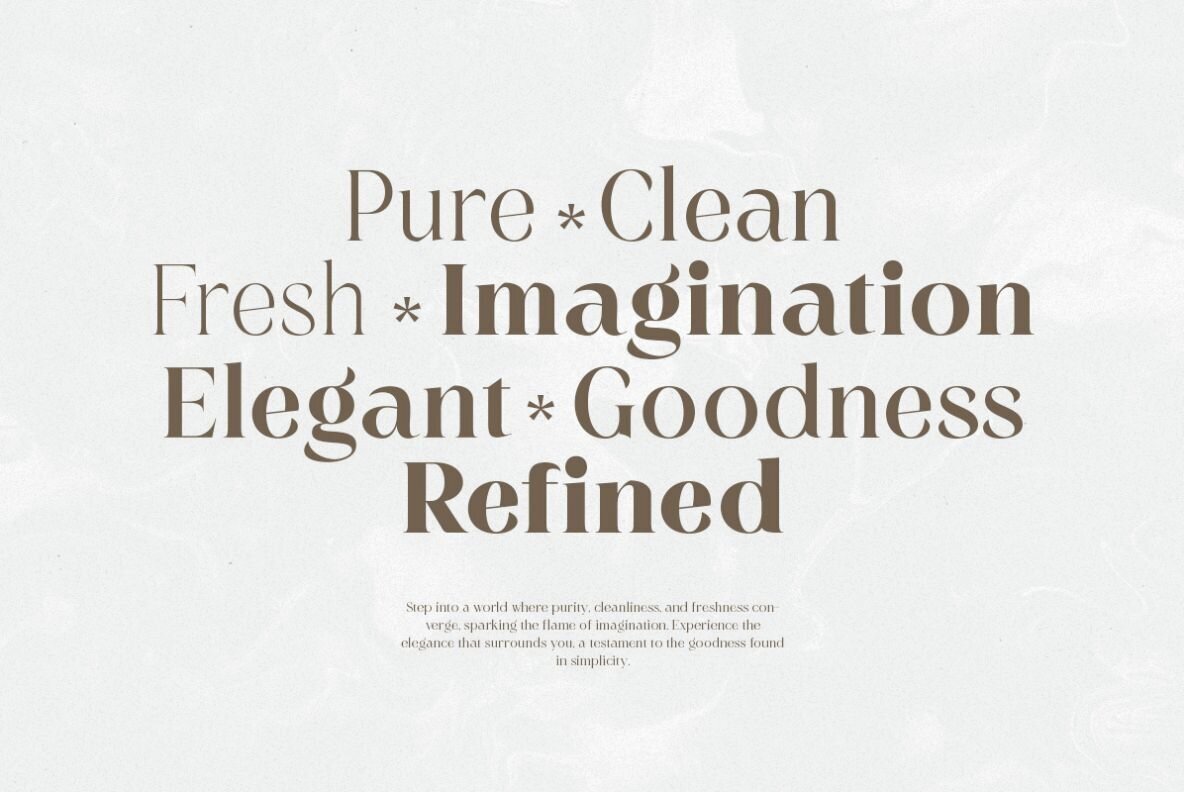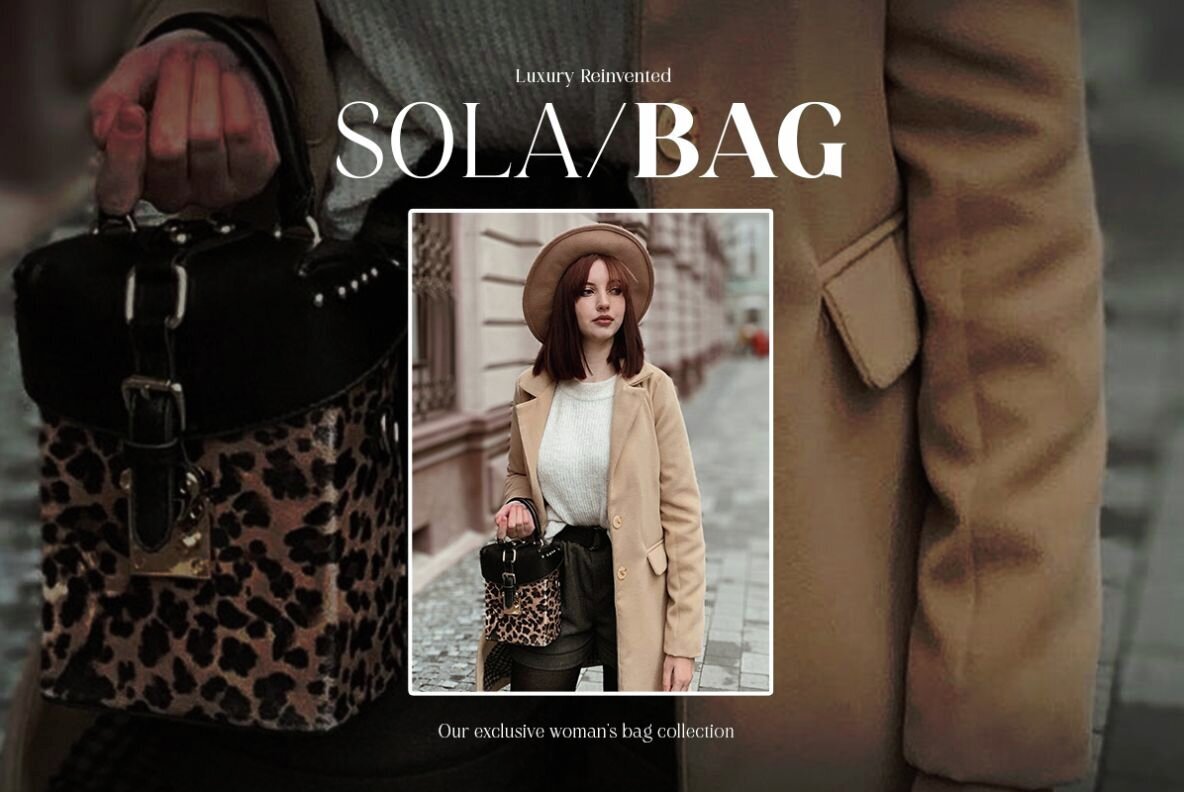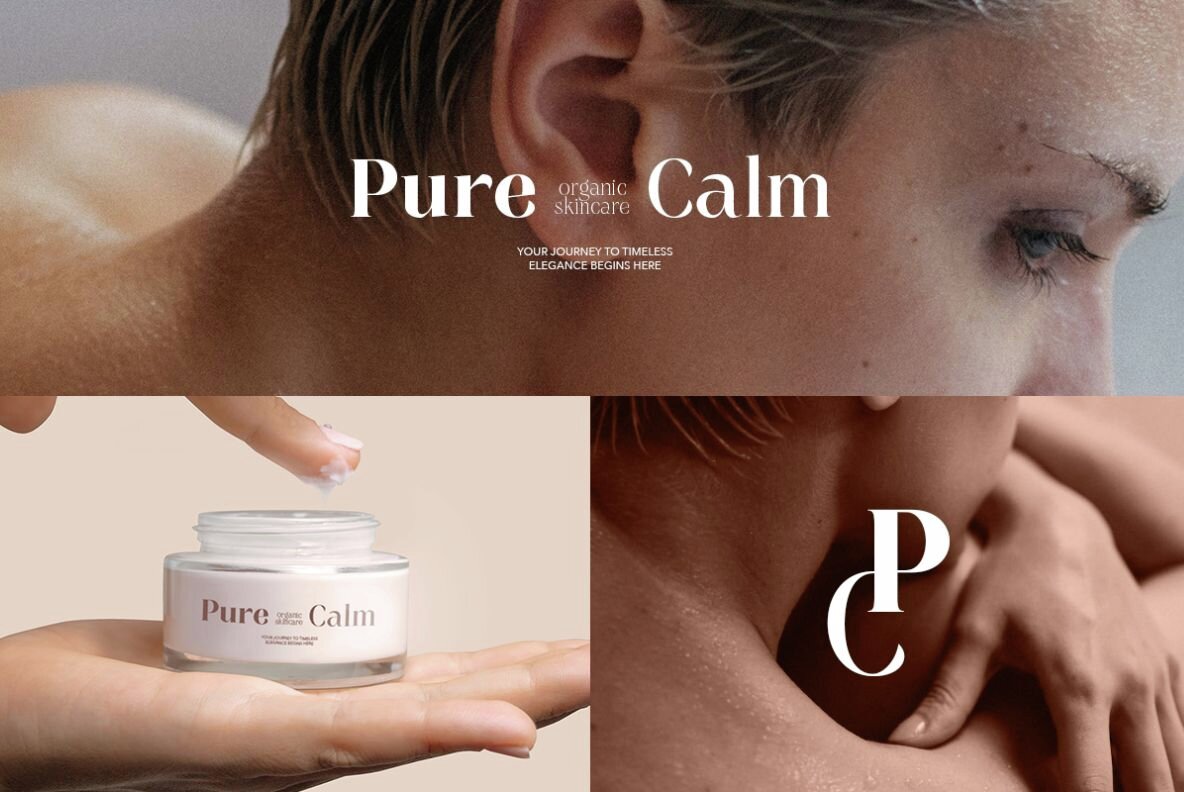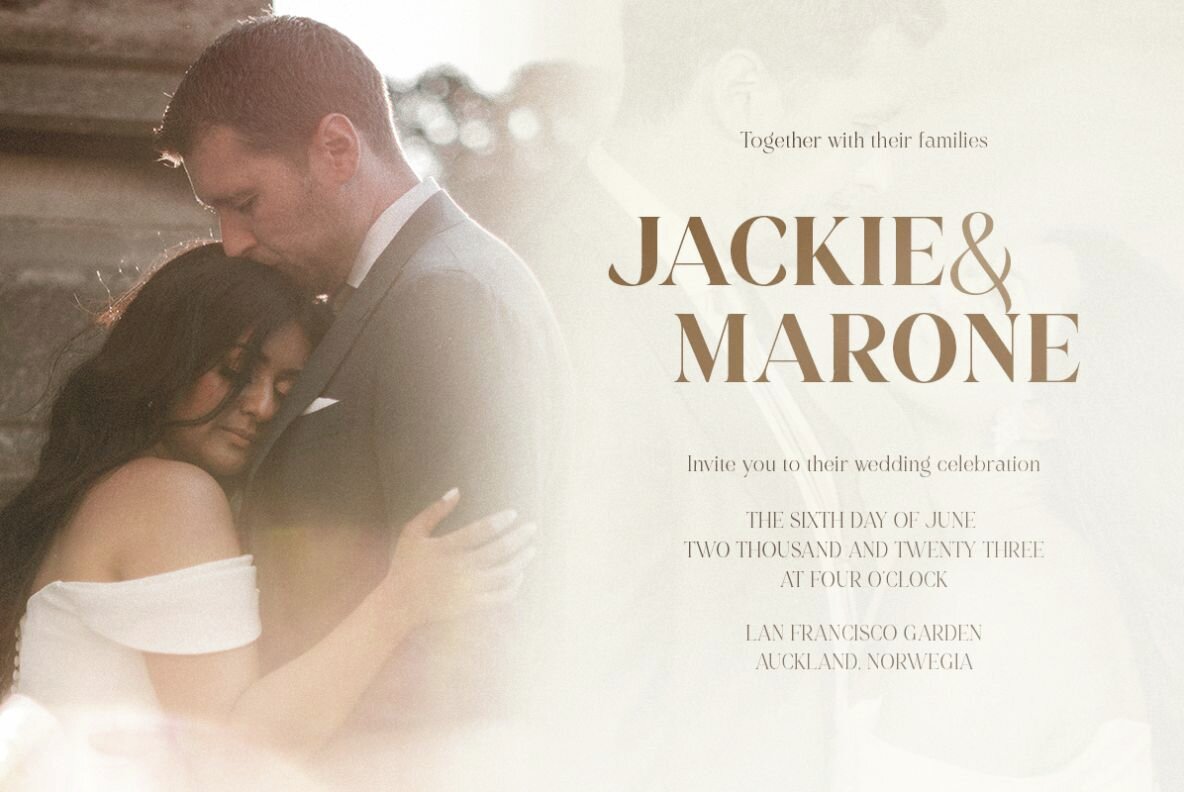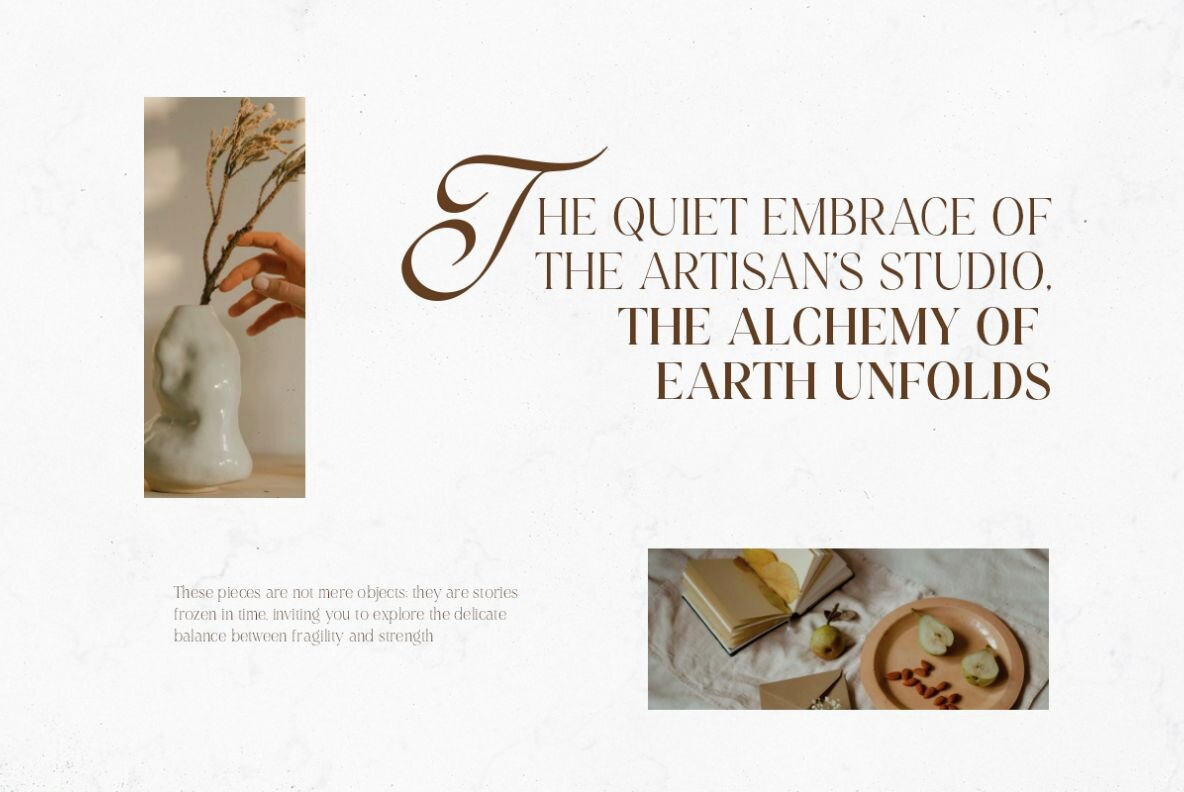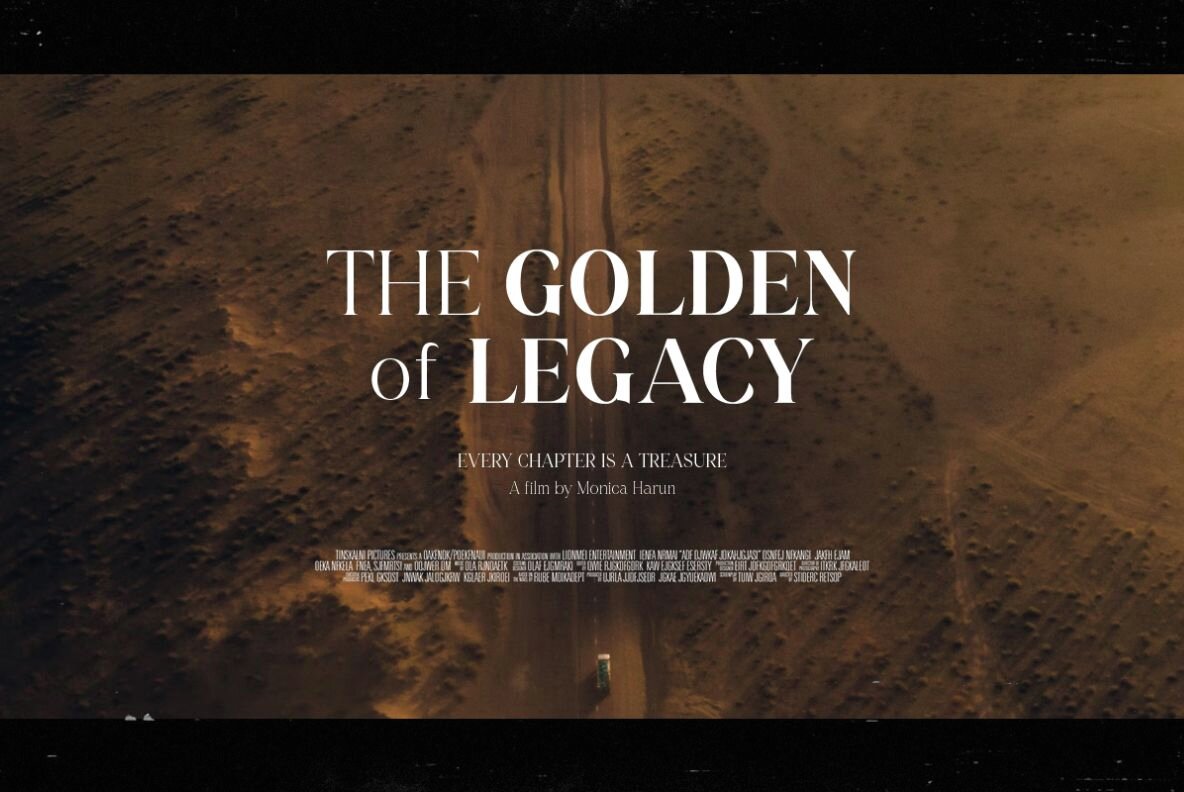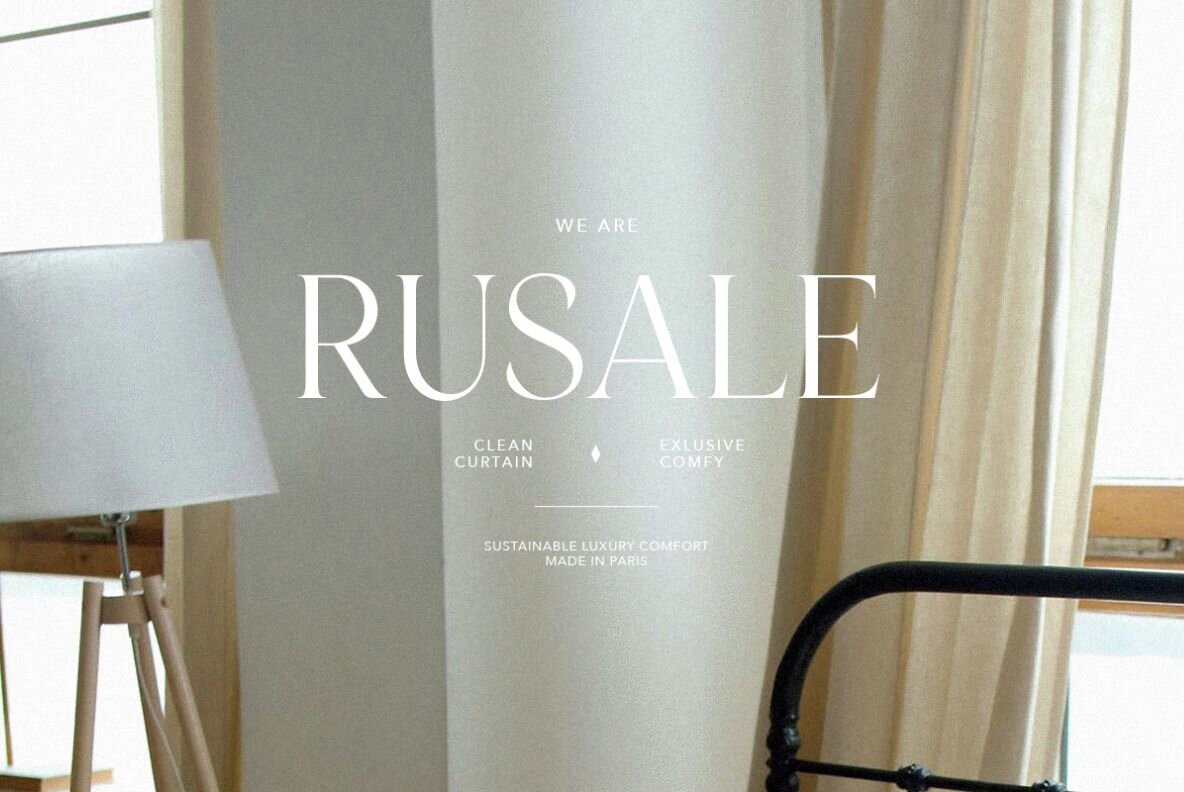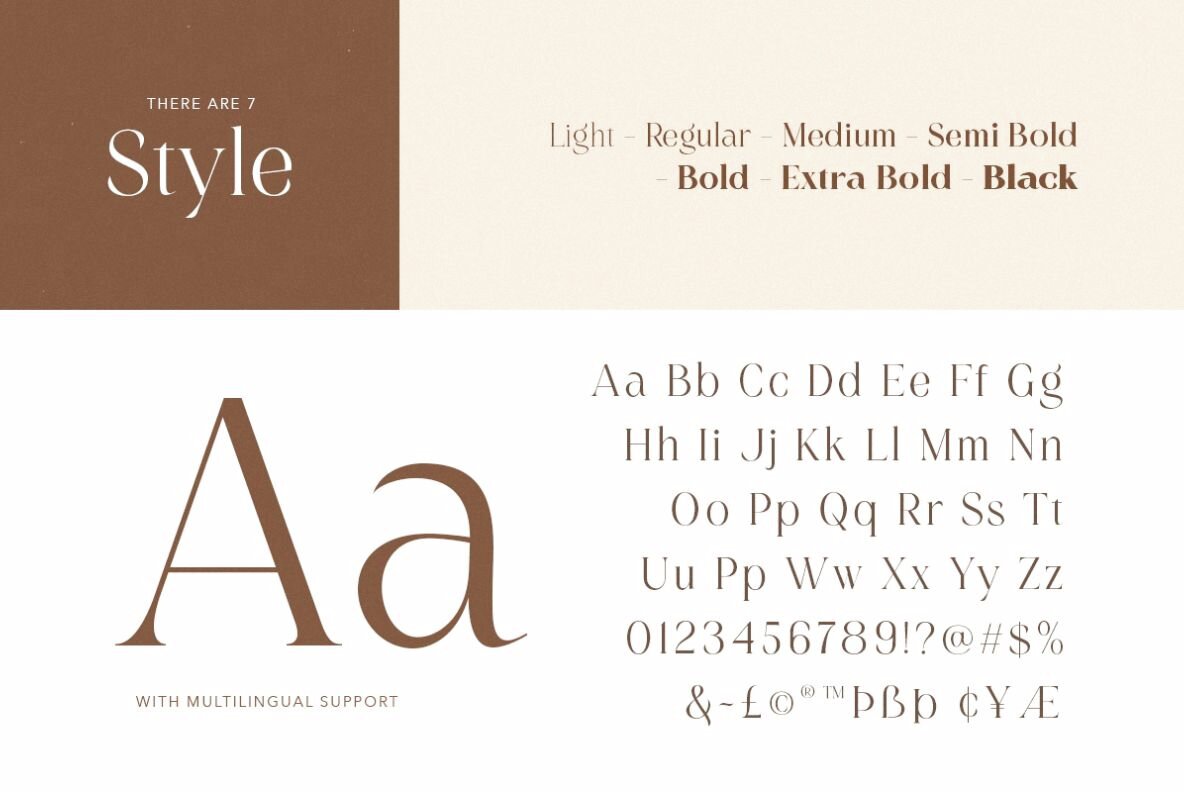
Golden Silk Font
Golden Silk is a refined serif font family that combines elegance with a contemporary edge. Featuring seven weights, from light to black, it offers ample versatility for various design projects. The light and regular weights are perfect for achieving a clean, minimalist aesthetic, while the bold and extra bold options deliver a strong, impactful presence.
Ideal for both digital and print applications, Golden Silk supports multiple languages, making it a suitable choice for global design needs. Its classic serif design ensures readability and sophistication, whether you're working on branding, editorial layouts, or web design.